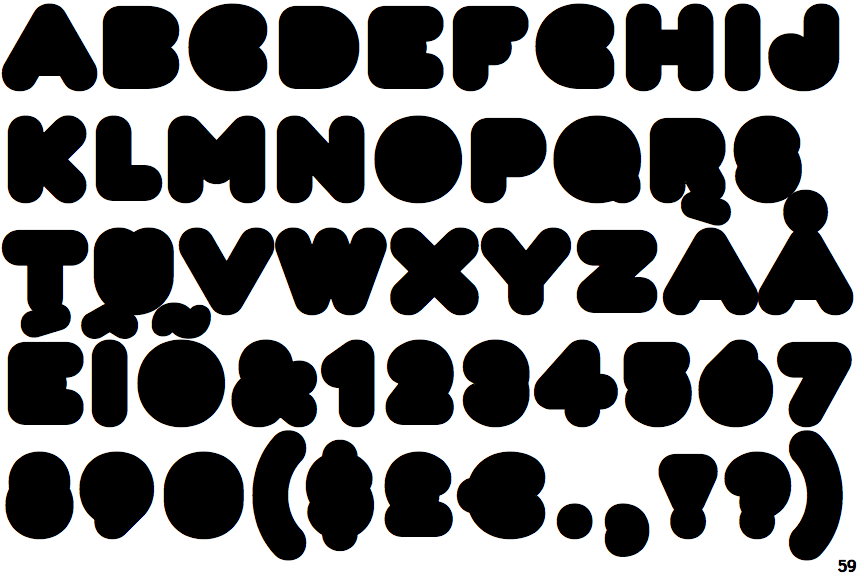
Corpulent Font is perfect for hearty restaurant branding, abundance-themed advertising, generous portion promotions, feast celebration materials, comfort food packaging, family-style dining signage, all-you-can-eat buffet communications, harvest festival displays, indulgent dessert shop menus, and abundantly satisfying marketing communications.
Corpulent Font is exciting because it embodies the generous spirit and abundant satisfaction of bountiful experiences with its richly full letterforms that expand with the welcoming warmth of overflowing hospitality and radiate the satisfying comfort of meals shared with loved ones. Its generously robust character design reflects both the hearty abundance that defines memorable feast experiences and the welcoming generosity that makes gatherings truly special, making it perfect for brands celebrating abundance and generous hospitality.
Corpulent Font family includes light, regular, medium, bold, and black weights, each with corresponding italic versions. The font family also features abundance-inspired ornaments, hearty ligatures, feast symbols, and generous decorative elements that enhance its bountiful aesthetic and hospitality versatility.
This abundantly satisfying typeface represents the perfect fusion of generous hospitality and hearty comfort. Corpulent Font Free Download allows designers to experience its bountiful appeal before making a commercial commitment. The font's ability to convey both generous abundance and satisfying comfort makes it ideal for restaurants, food services, and hospitality brands targeting audiences seeking hearty, satisfying experiences and generous portions.
Whether you're developing hearty restaurant identities, creating feast celebration materials, or designing abundance-focused communications, Corpulent Font brings an unmistakable sense of generous satisfaction and bountiful hospitality to every project. Its robust character and abundance heritage create powerful connections that resonate with audiences seeking satisfying, generous experiences and hearty comfort.
The font's versatility excels in hospitality and food environments where abundance and generous satisfaction are valued. Its hearty character makes it particularly effective for family restaurants, buffet establishments, feast organizers, and comfort food brands seeking to establish welcoming relationships with diners and audiences appreciating generous portions and abundant hospitality.
For designers working on projects requiring genuine abundance appeal and hearty satisfaction, Corpulent Font provides an exceptional solution. Its generous presence and comprehensive feast-themed elements offer the tools needed for creating truly satisfying communications, while its bountiful warmth ensures your designs capture the welcoming abundance and generous hospitality that defines the most memorable feast experiences and satisfying comfort food traditions.